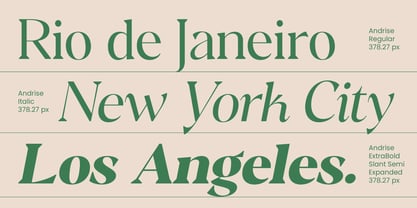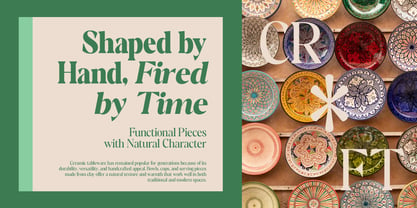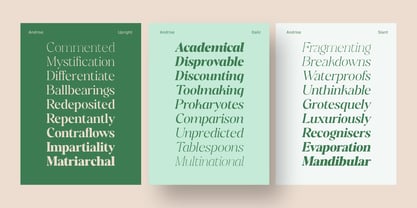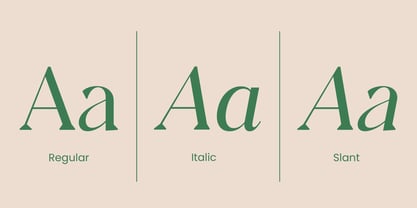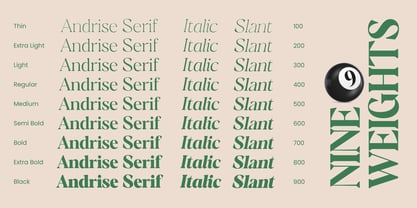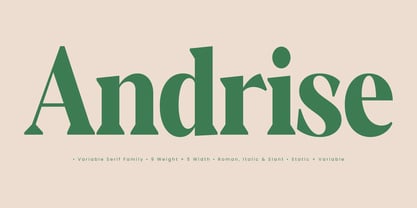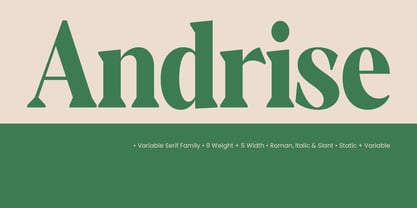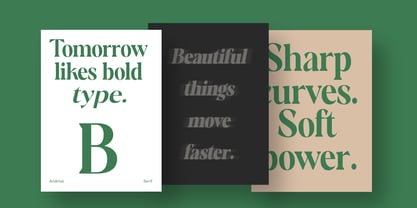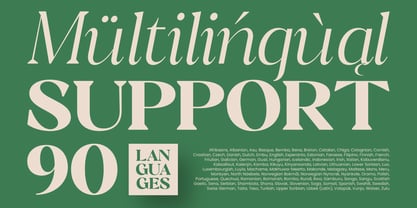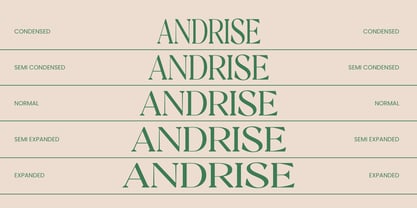
Andrise
by Lucky Type
The Andrise Font Family was designed by Muhammad Fajar and published by Lucky Type. Andrise contains 137 styles and family package options. More about this family
Andrise is a modern variable serif typeface that combines timeless elegance with contemporary character. Inspired by classic editorial typography, it features sharp wedge serifs, refined curves, and confident contrast—creating a luxurious and sophisticated impression.
Built for creative flexibility, Andrise includes 9 weights and 5 widths, complete with Roman, Italic, and Slant styles. Whether used for branding, fashion editorials, packaging, magazines, or elegant logo design, Andrise delivers a strong and distinctive visual identity
Carefully crafted for both display and long-form typography, Andrise balances beauty and readability in every letterform. Available in Static and Variable formats, it gives designers complete control for modern design needs.
Andrise also supports Latin Pro, making it suitable for multilingual projects and global branding.